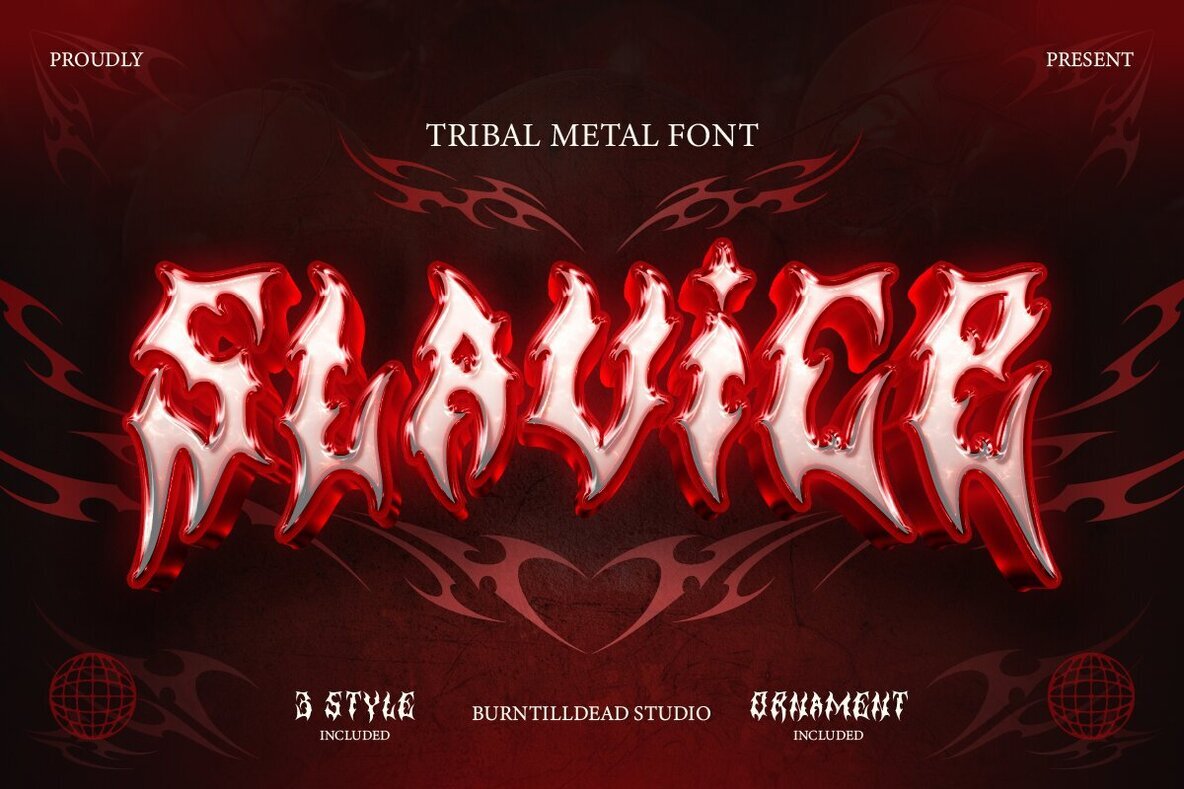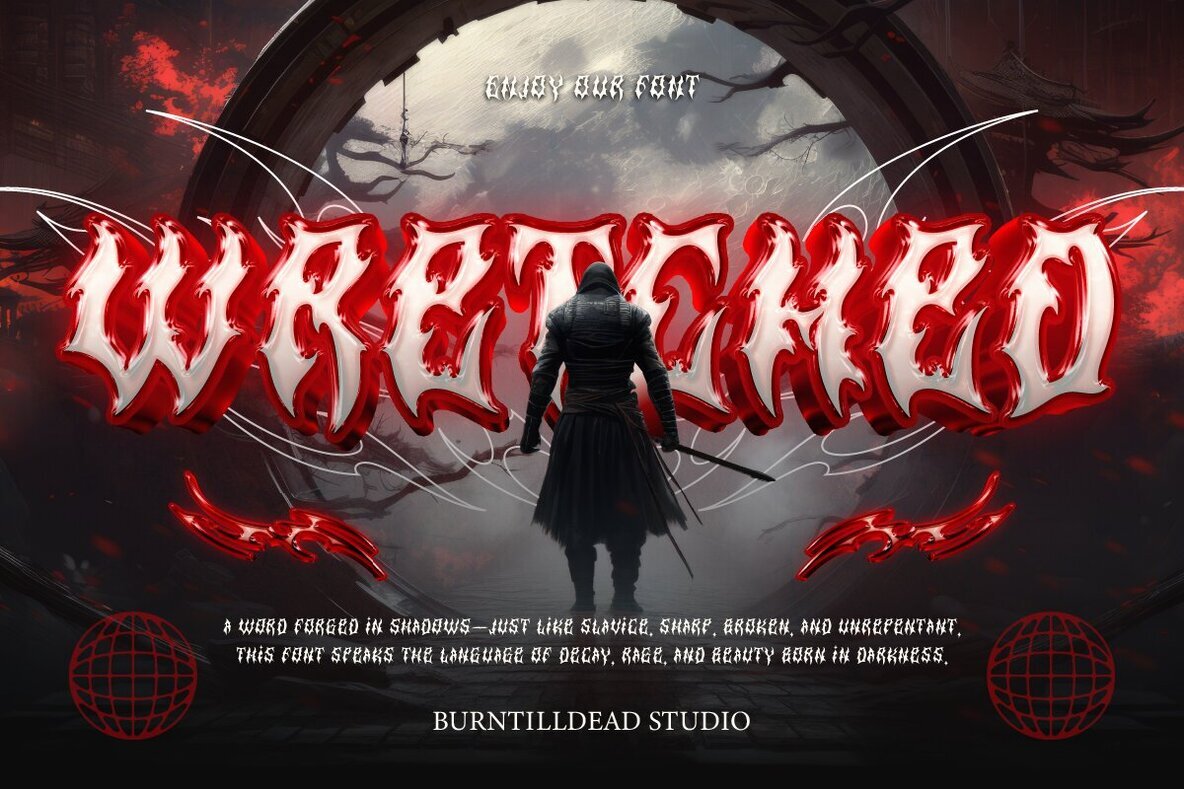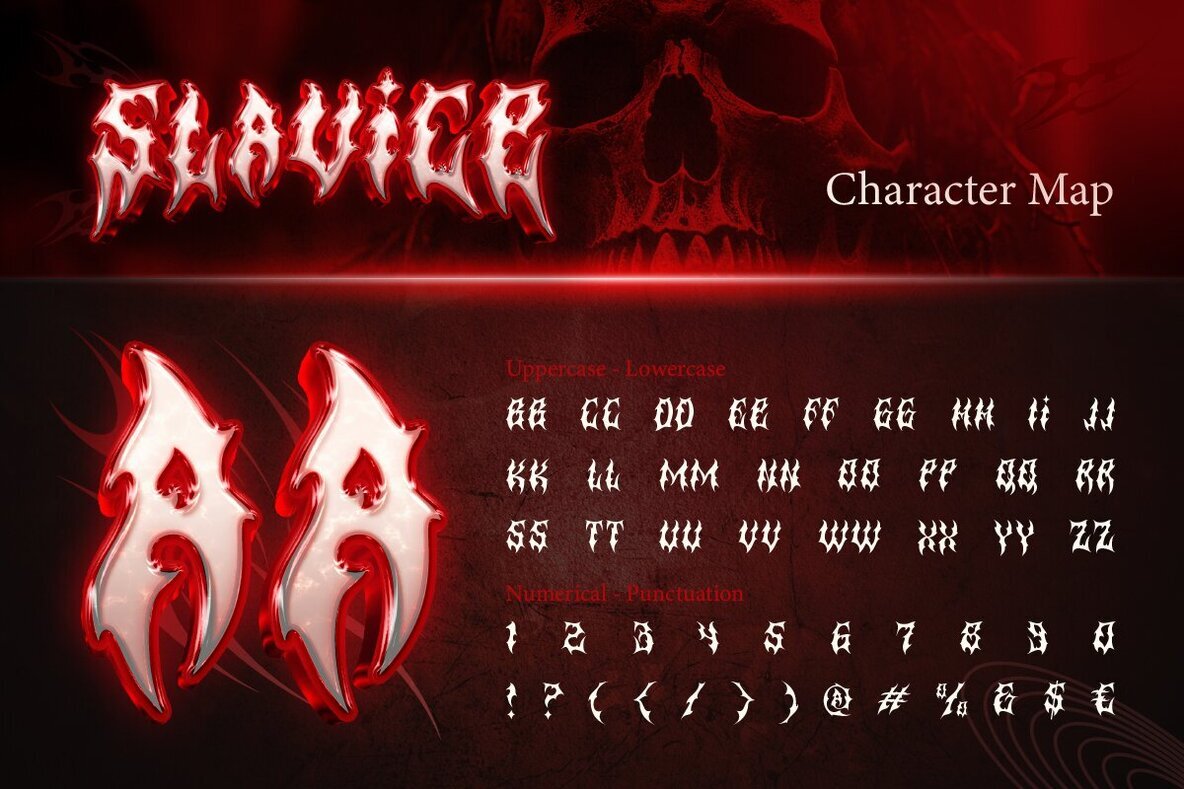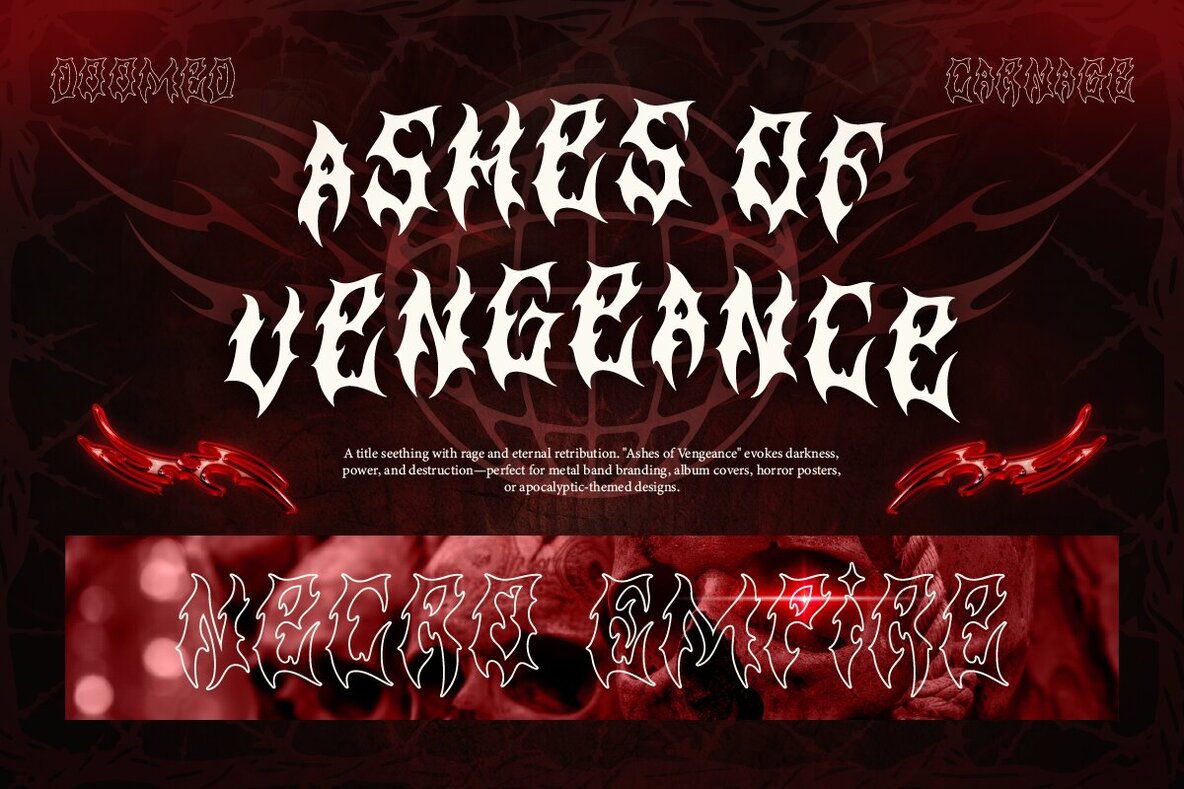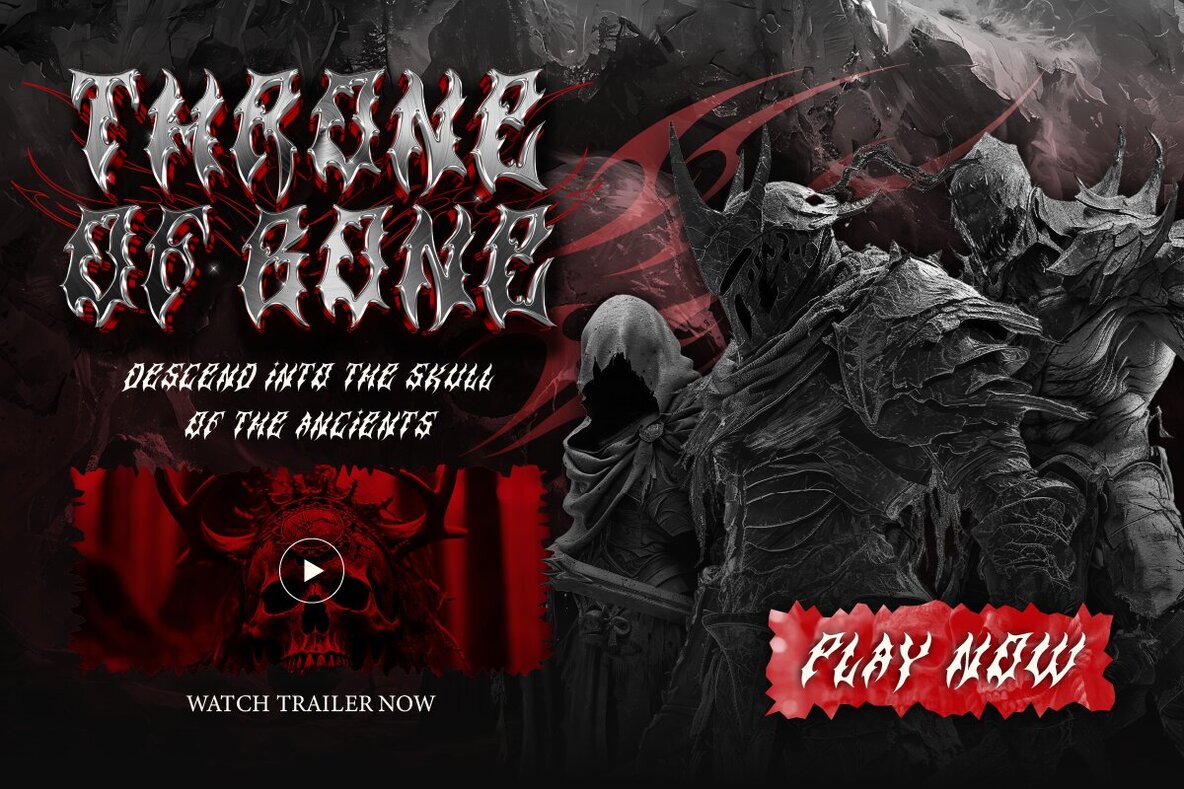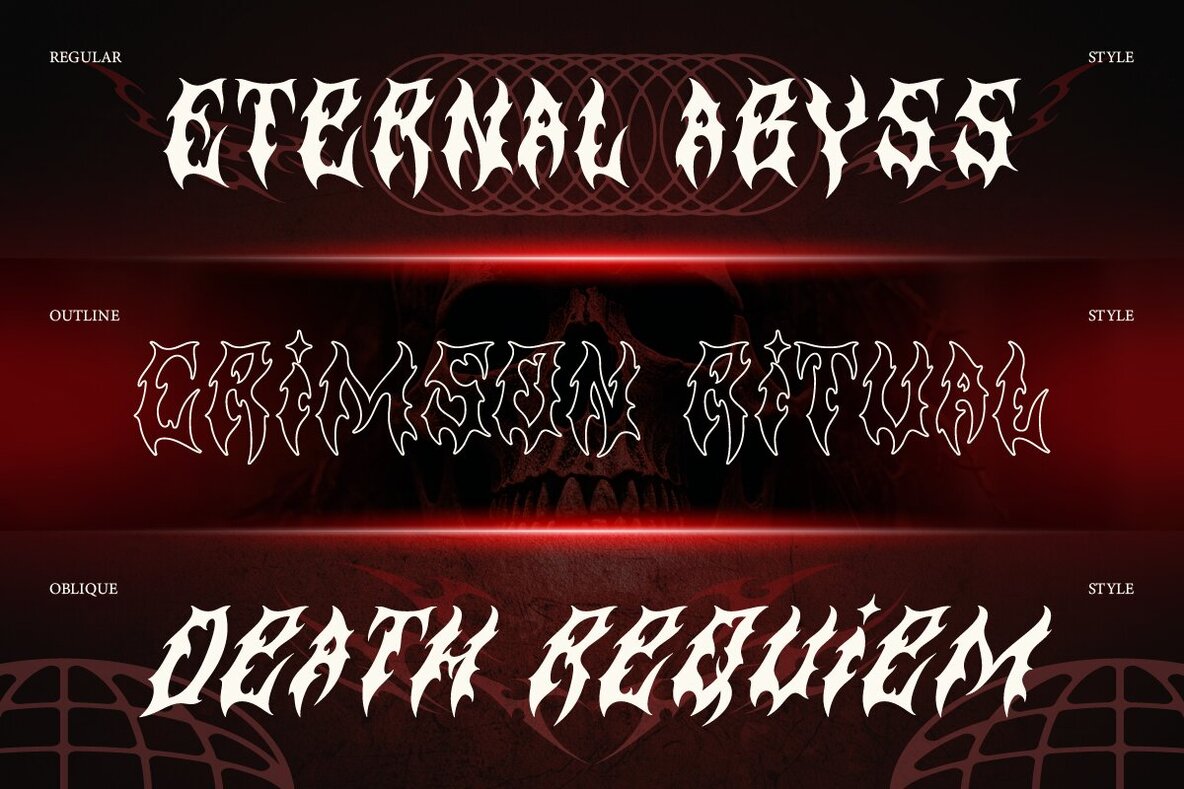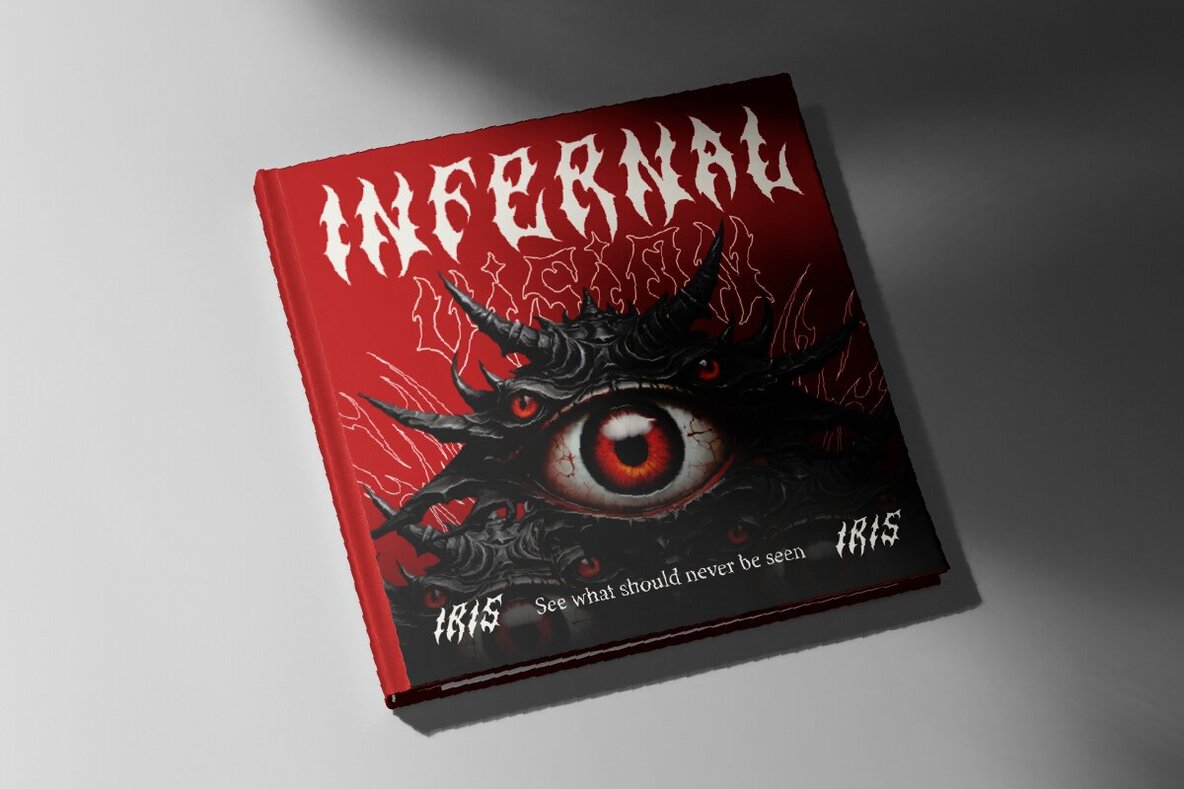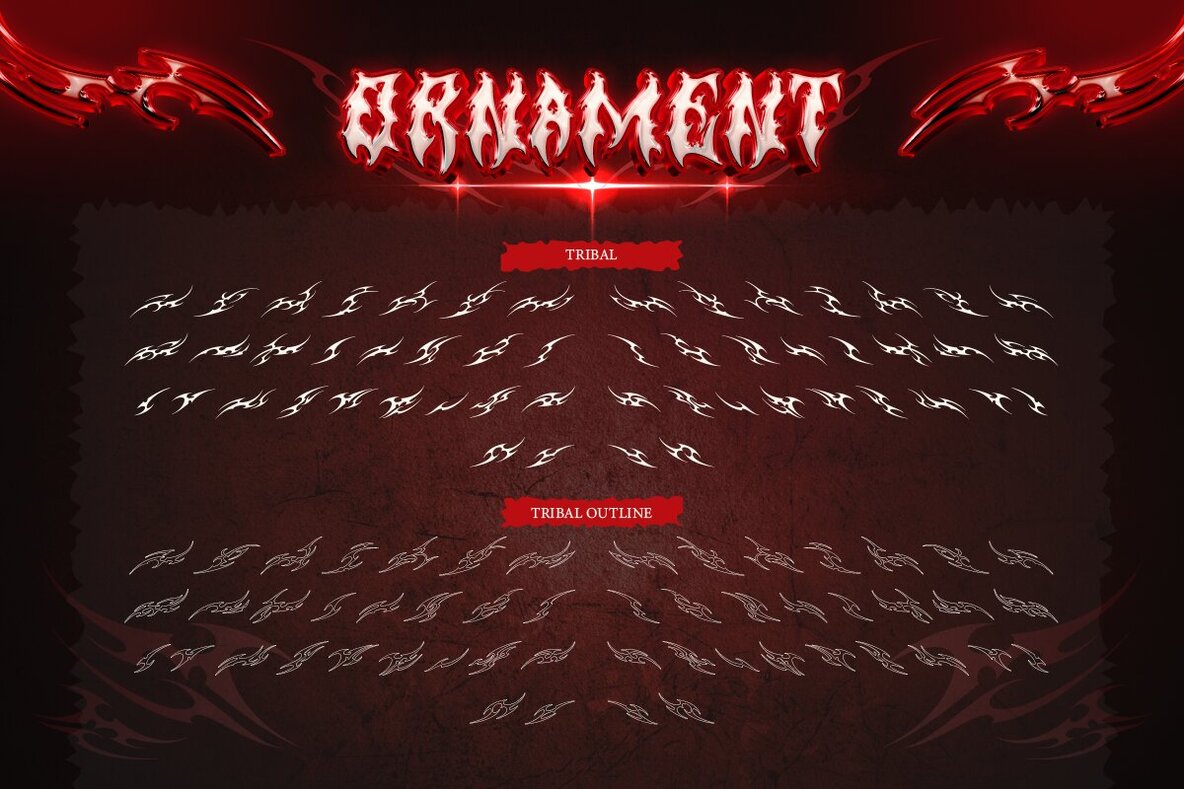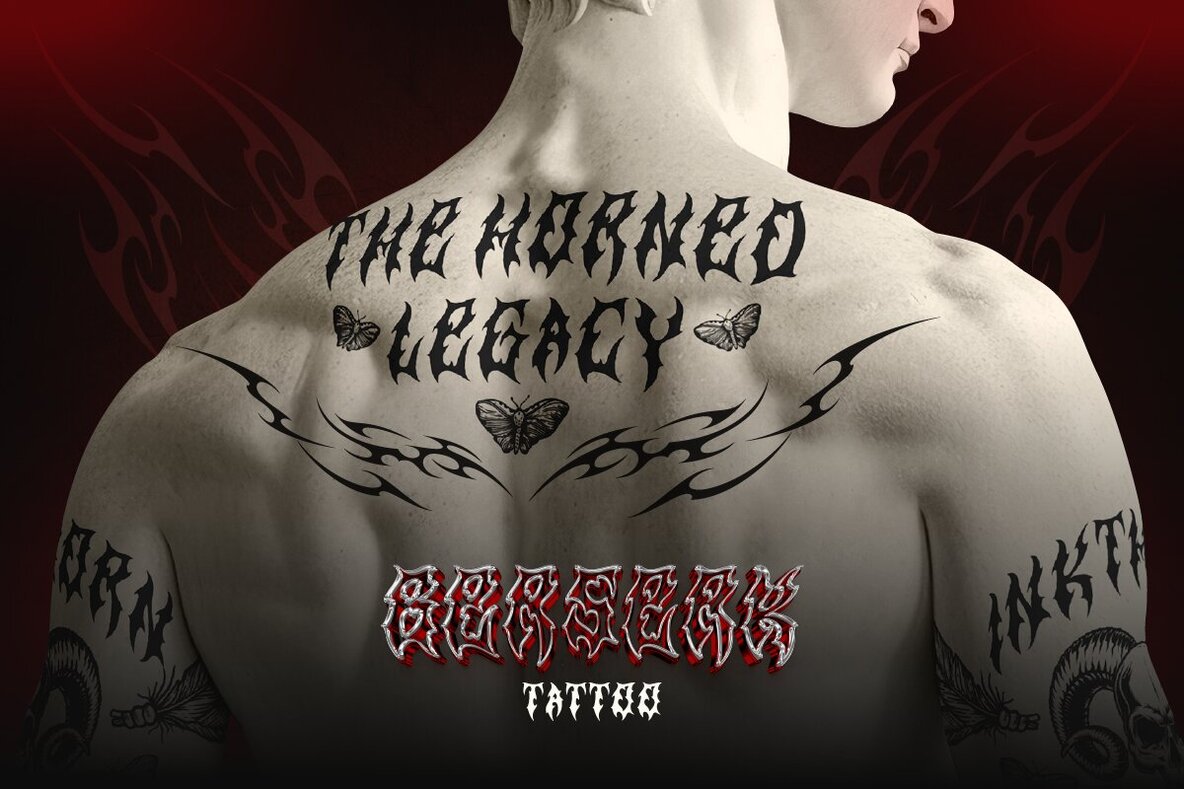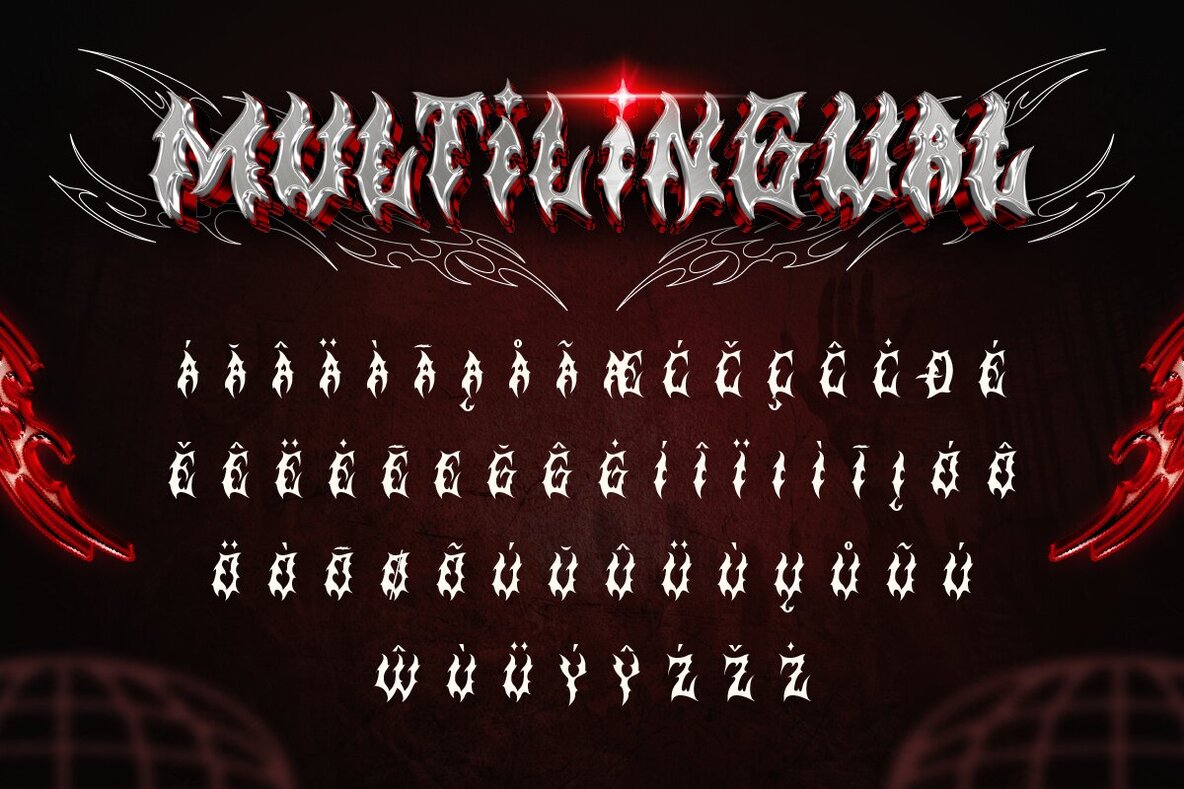
Slavice Font
Slavice Regular
Slavice Oblique
Slavice Outline
Slavice Tribal
Slavice Tribal Outline
Unleash your creativity with Slavice, a tribal metal font that pushes boundaries and redefines artistic expression. Crafted with intricate details and dynamic curves, this font merges chaos and aesthetics into a strikingly bold, aggressive, and masculine design. Inspired by the iconic style of tribal tattoos, Slavice is perfect for adding a fierce edge to your projects.Slavice: A Tribal Metal Font
Diverse Styles and Applications